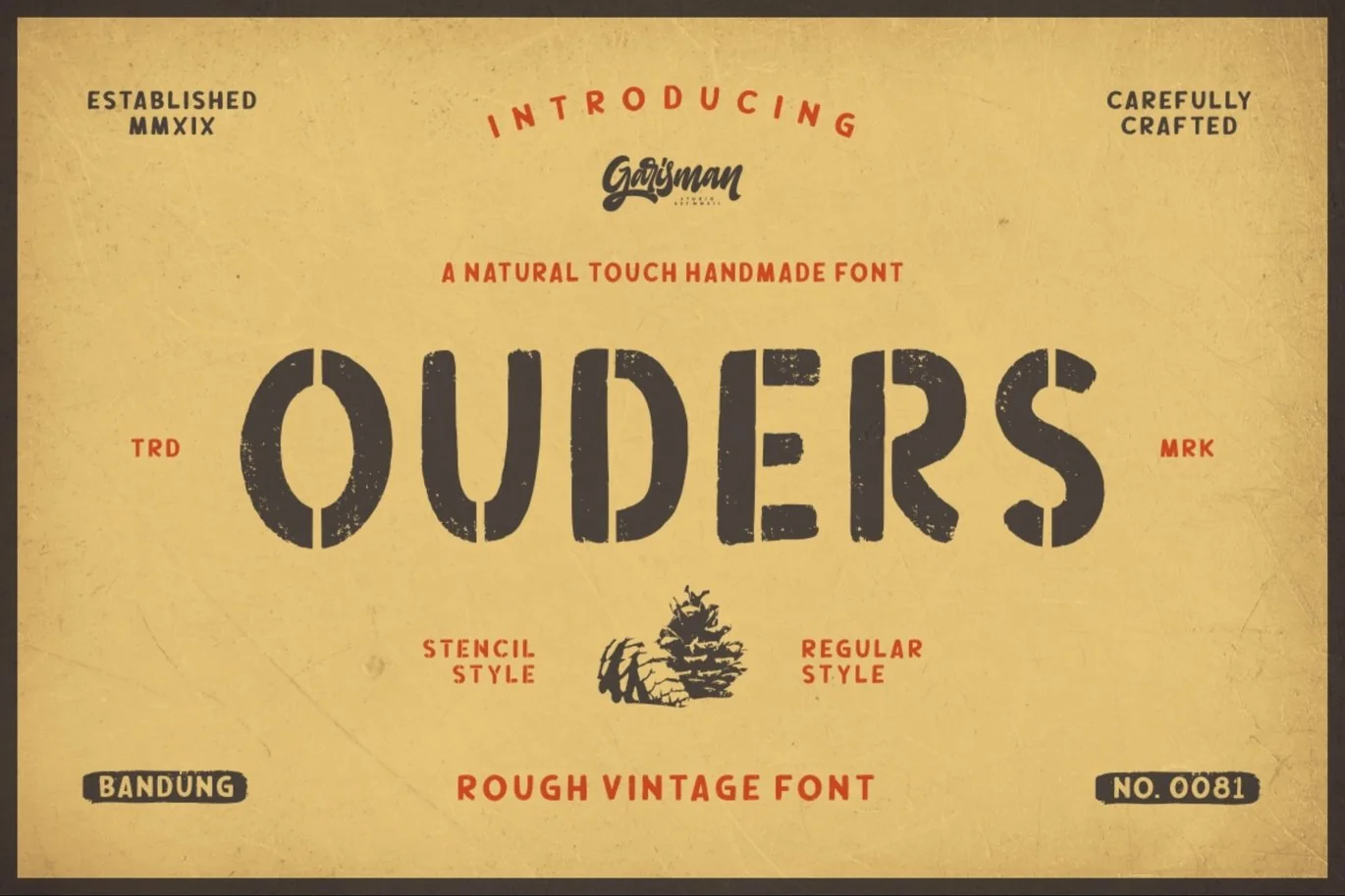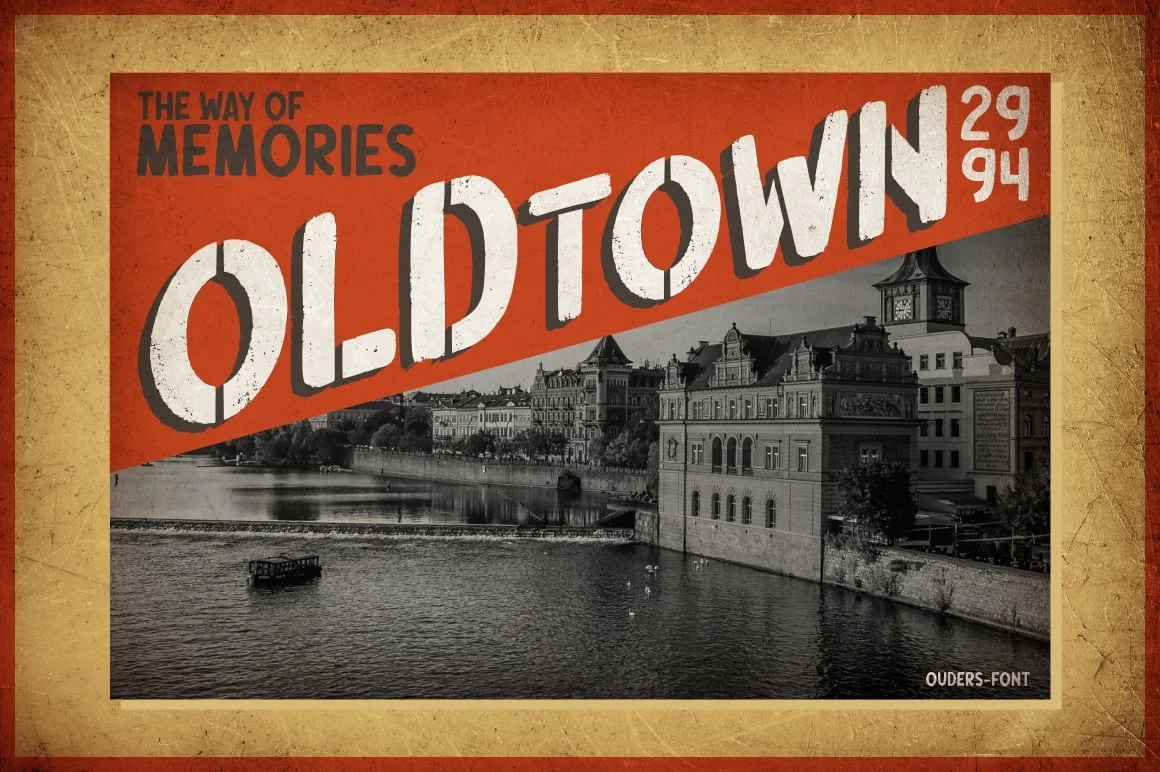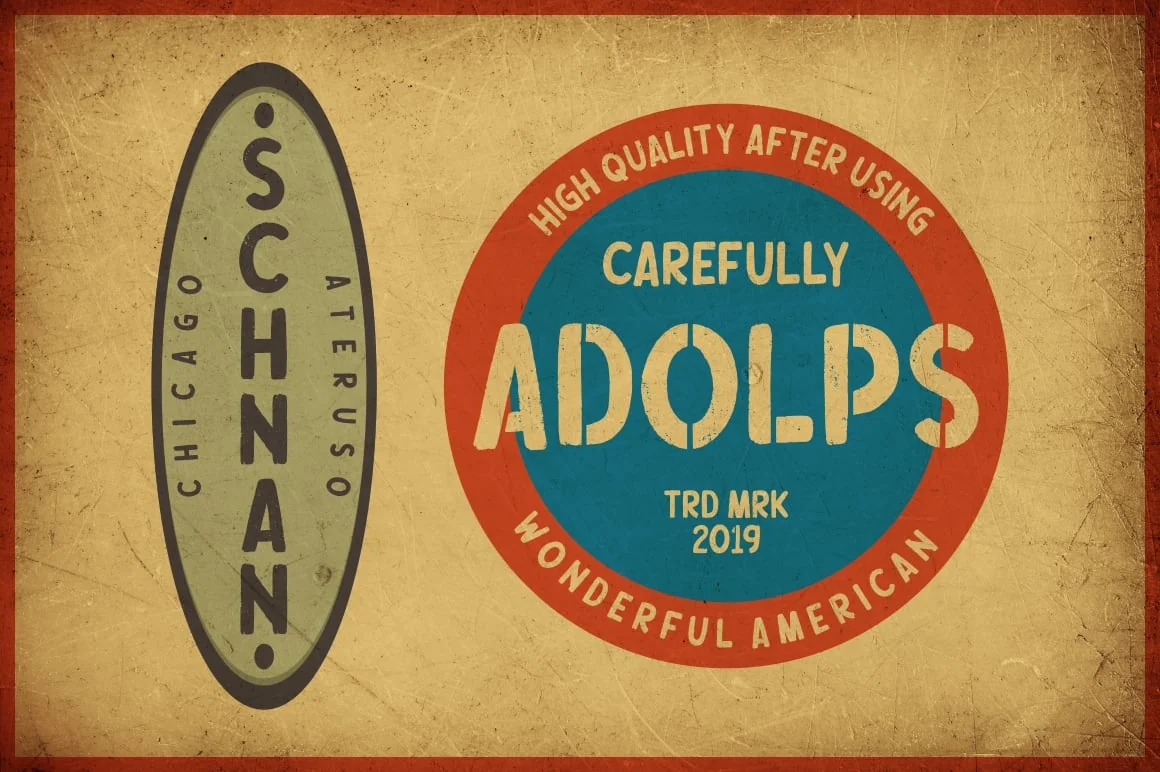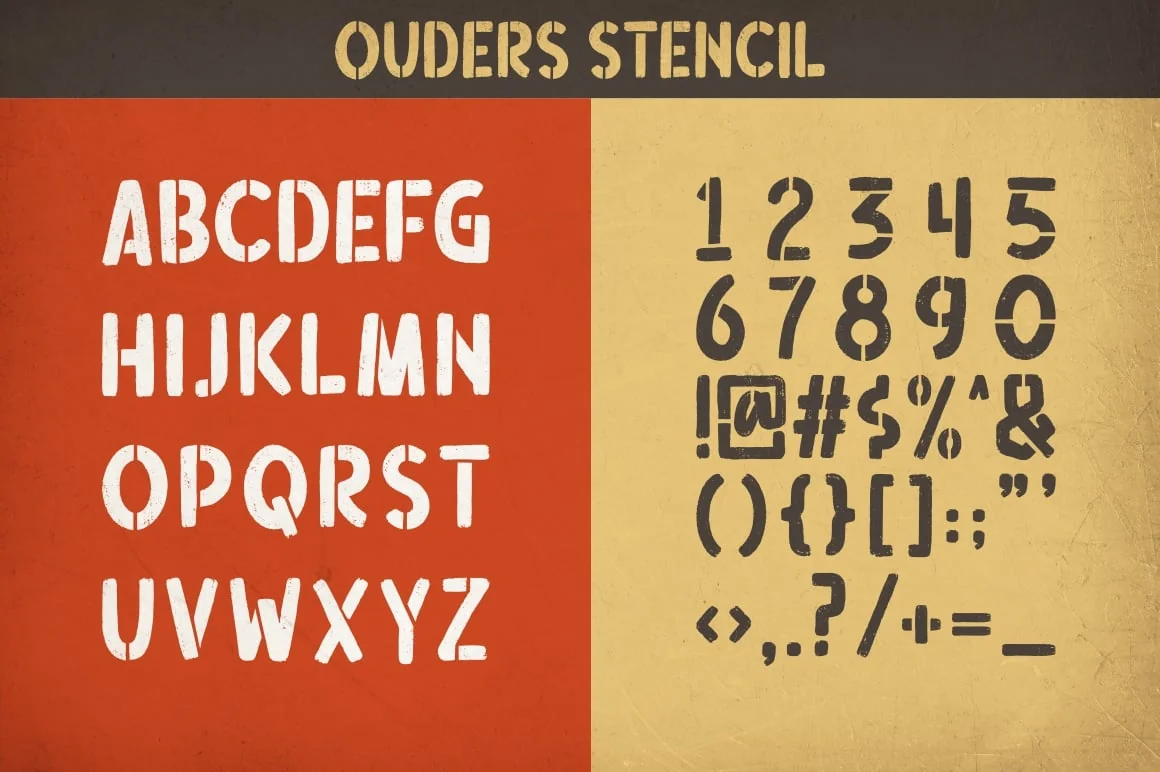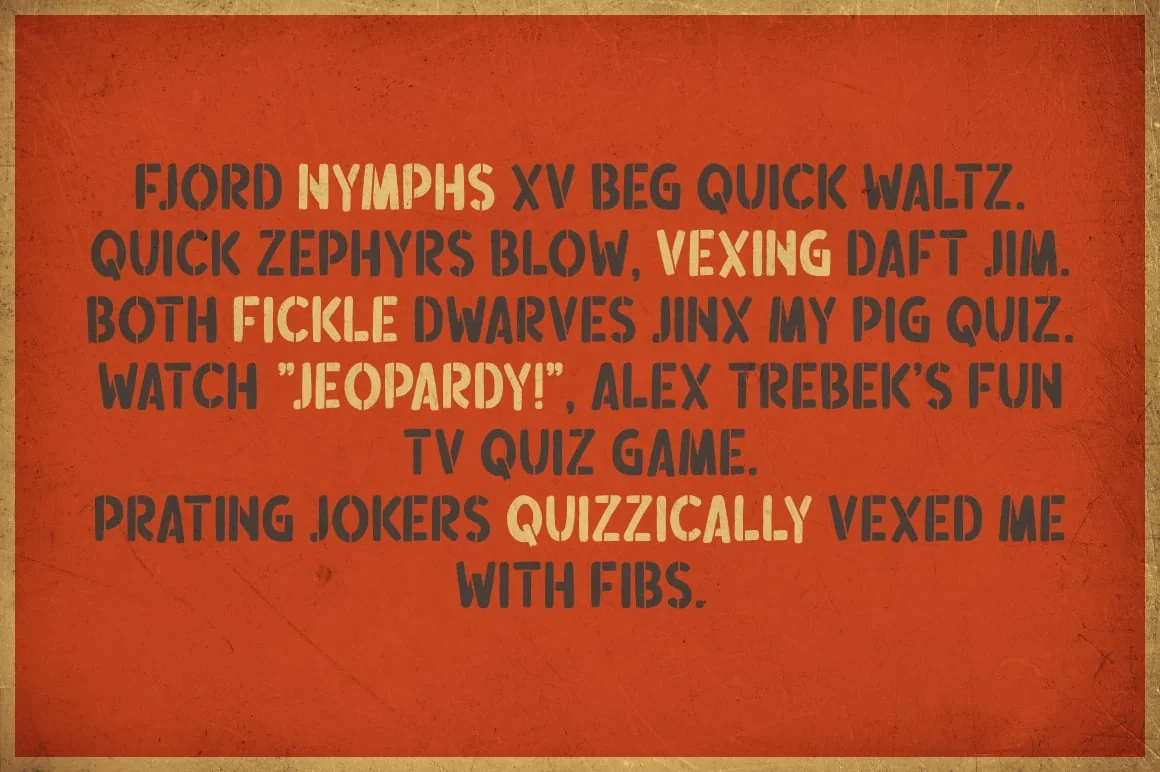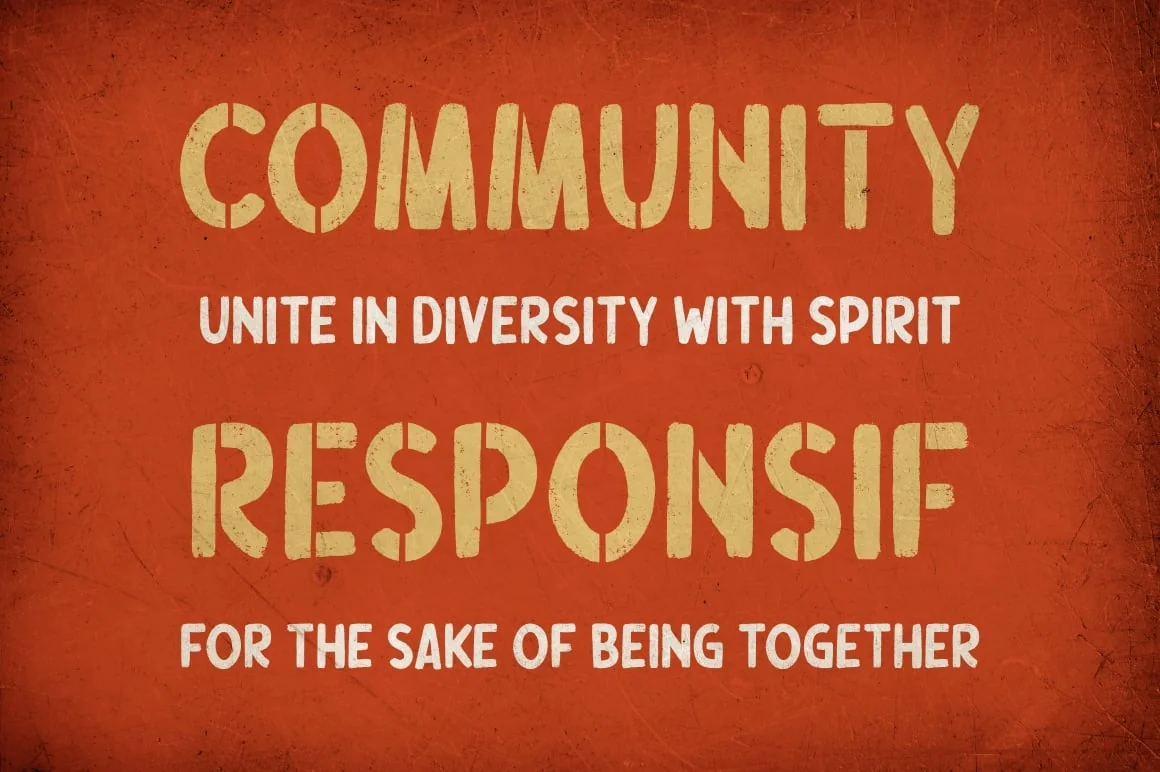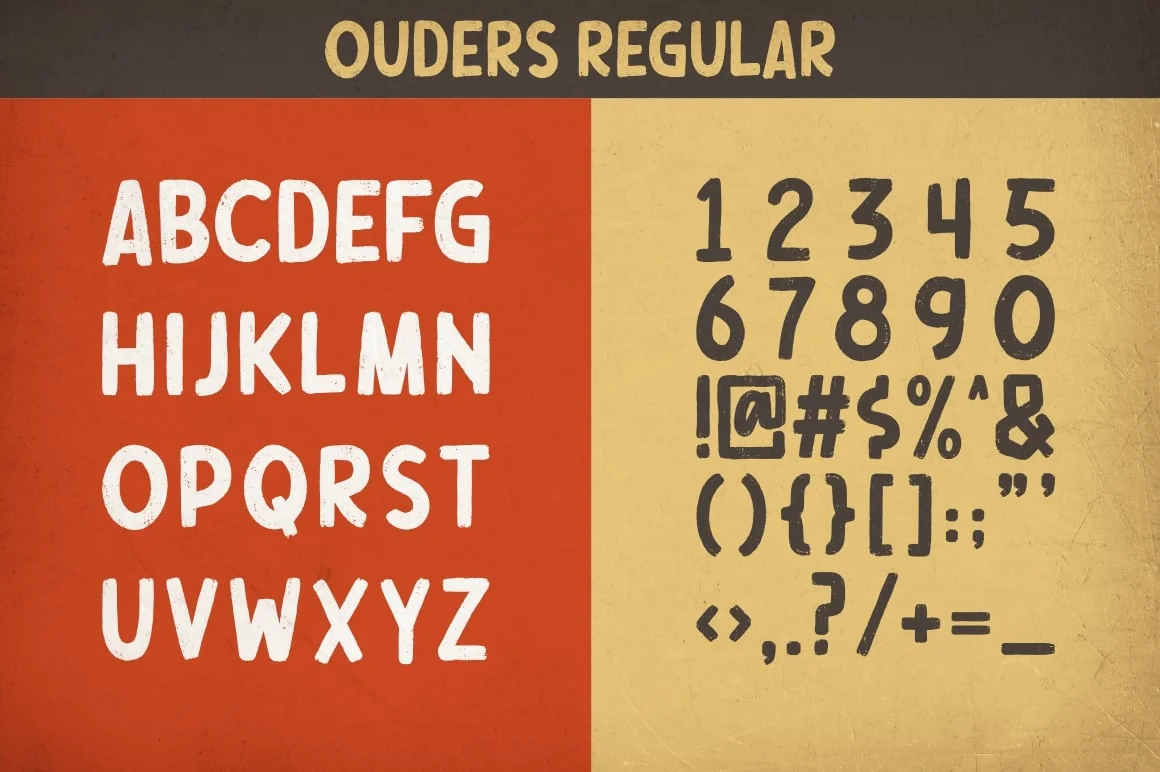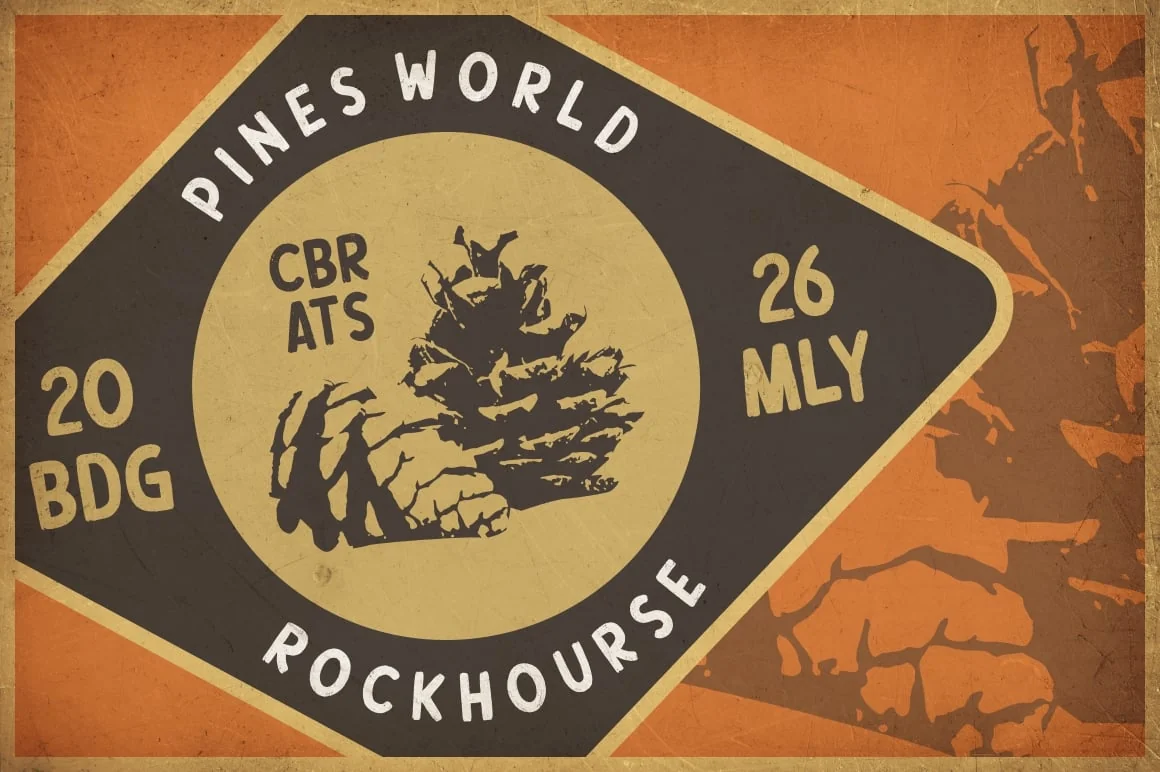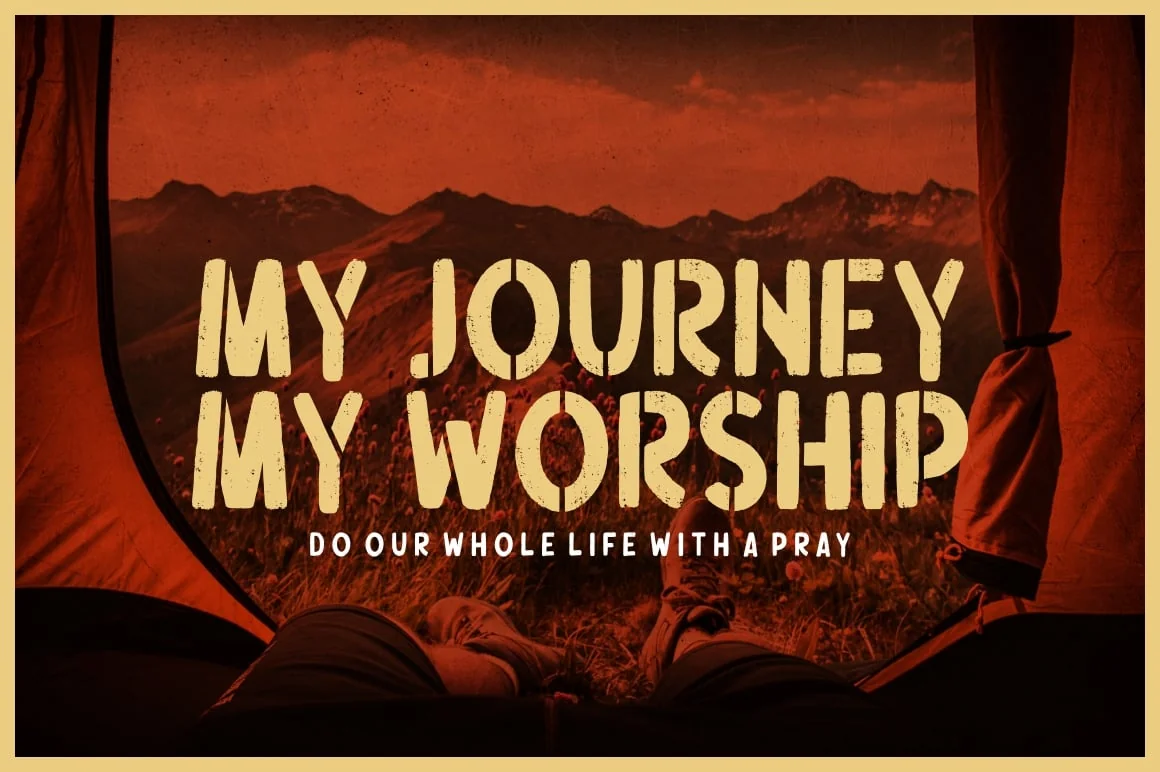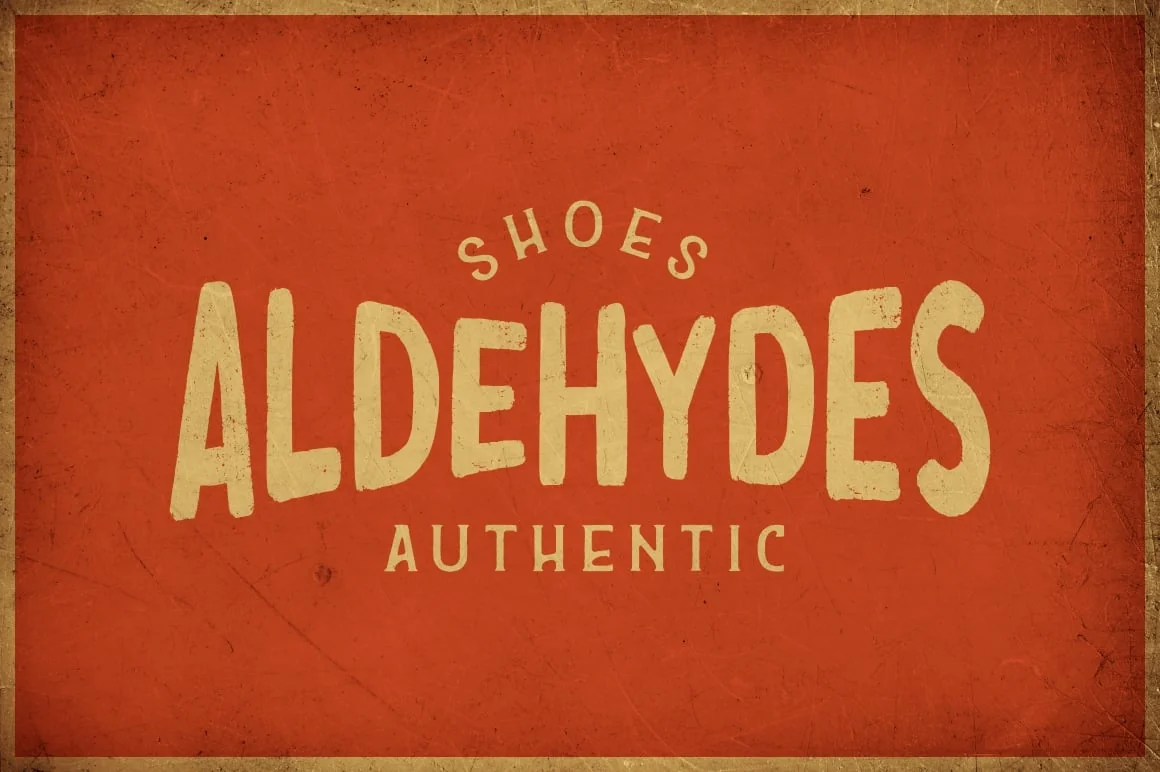
Ouders | Vintage Stencil Typeface
Introducing Ouders – Vintage Font
Welcome to our new vintage font with light streaks that form a vintage style with a touch of rough. Ouders very able to beautify also strengthen your work in the form of type logos, typography, handlettering, packaging, t-shirts, labels, and much more.